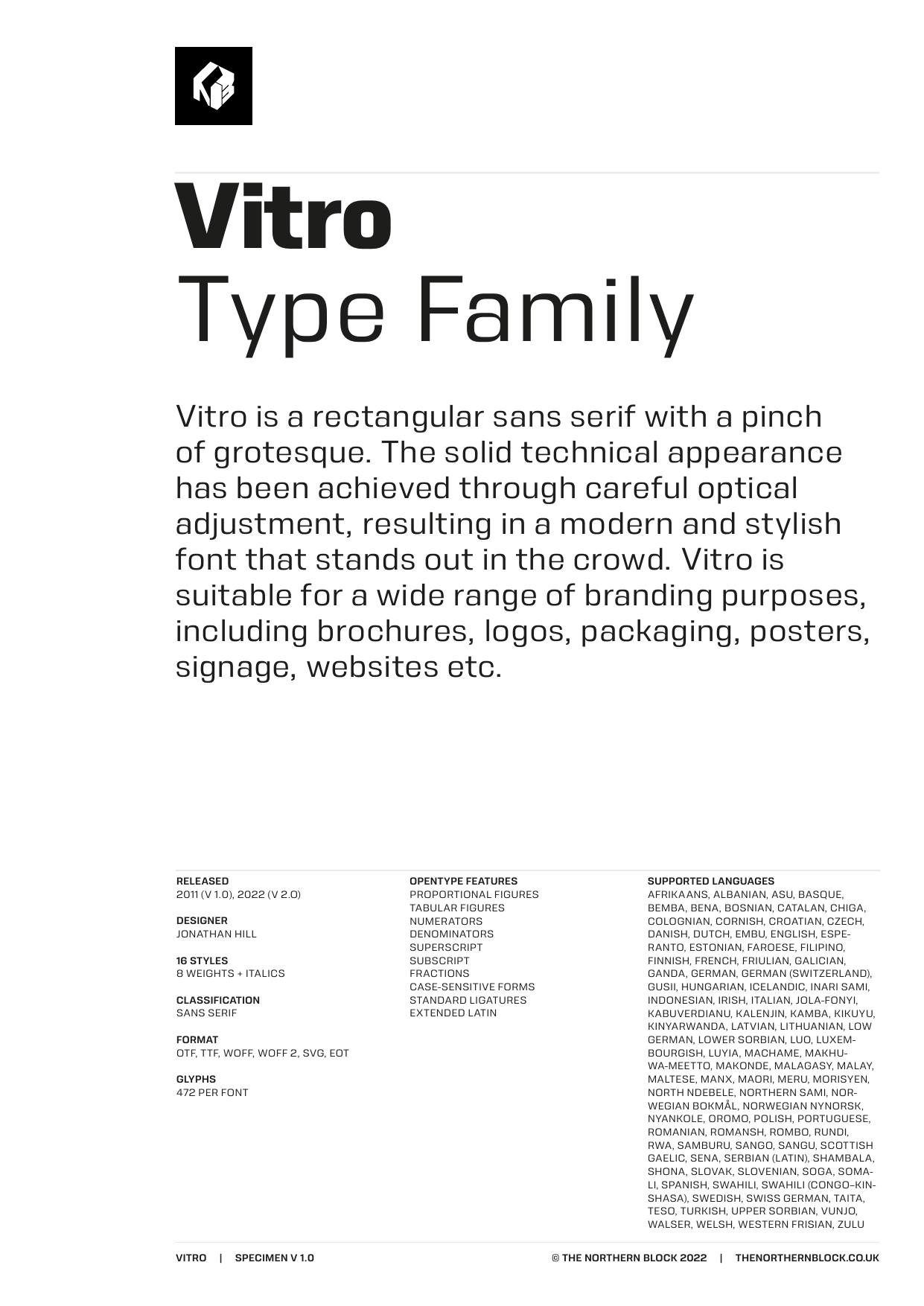
Vitro
Vitro is a rectangular sans serif with a pinch of grotesque. The solid technical appearance has been achieved through careful optical adjustment, resulting in a modern and stylish font that stands out in the crowd. Vitro is suitable for a wide range of branding purposes, including brochures, logos, packaging, posters, signage, websites etc.
Details include nine weights with italics and over 450 characters per style. OpenType features consist of digital numerals, numerators, denominators, tabular, fractions and language support covering Western, Southern and Central Europe—remastered to version 2.0 for enhanced OpenType features and usability.